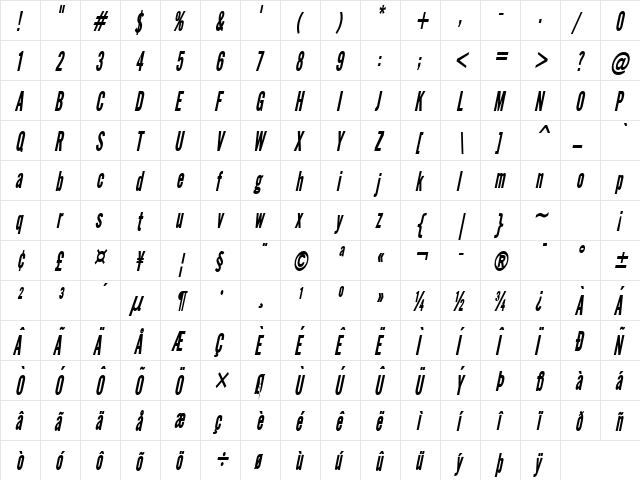
Eng Gothic Thin BoldItalic Font Preview
Design Context for Eng Gothic Thin Typeface
Eng Gothic Thin takes a clean, functional approach — its unadorned letterforms prioritise legibility and work reliably across screen and print environments. The dynamic lean of this cut emphasises speed and emphasis in any layout. Its bold stroke weight gives it real presence on the page.
Well-suited to navigation labels, product packaging, and anywhere legibility at scale is essential.
Font Pairing: Use Eng Gothic Thin for headlines alongside a lighter-weight sans or serif for body copy to establish clear visual hierarchy.
Pro Tip: Use Eng Gothic Thin with generous tracking and line-height for the most luxurious effect — light sans-serifs reward spacious, considered layouts.